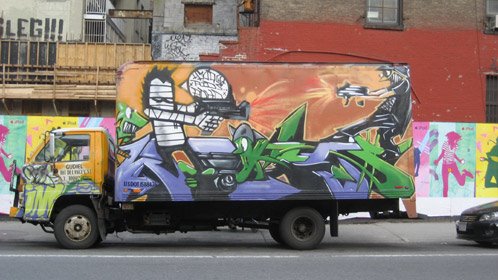
MADE OF great creativity, and chance. All I can say is ‘wow’ it done well. Even a truck can looks so damn beauty; how about apply it by my room then. Is a good works and deserve compliment. In this looks I would rather trailing the down town to just show off. Taking all the colors and image to be admired by others is the writer pride and joys. Looks at it, god! Nice. Like taking some my video game to a live. That image character is making its move in some battle ground against each other, and that bright orange color is good to fire up the scene.